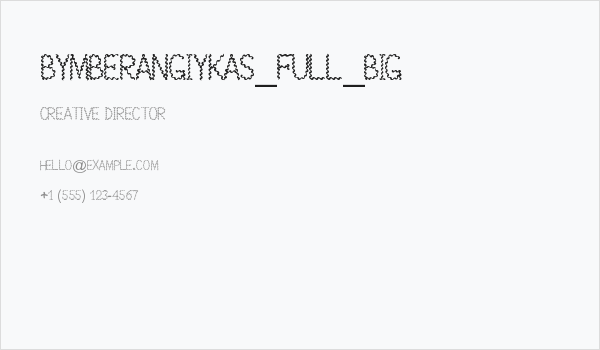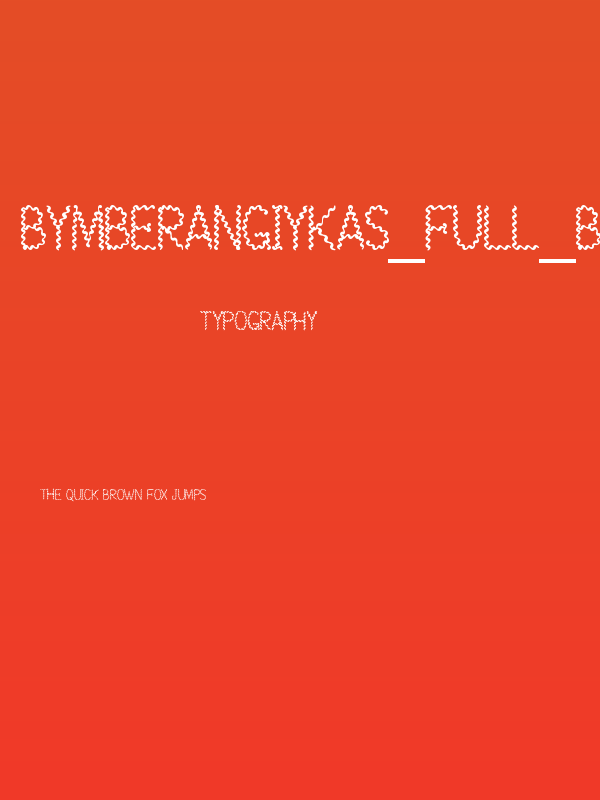
Bymberangiykas_Full_Big Font
Bymberangiykas_Full_Big Description
This font features a unique and playful design with wavy, zigzag outlines that give each character a lively and dynamic appearance. The letters are constructed with a consistent pattern of curves and angles, creating a sense of movement and energy. The uppercase and lowercase letters maintain a uniform style, while the numerals and special characters complement the overall aesthetic. This font's distinctive style makes it stand out, offering a whimsical and creative touch to any design project.